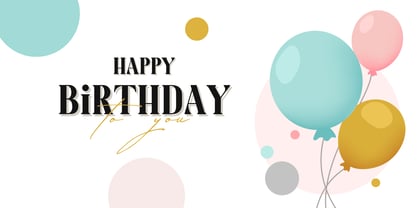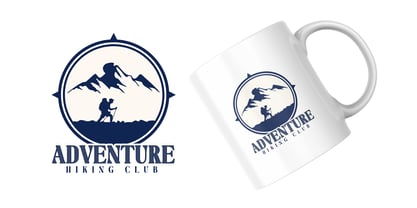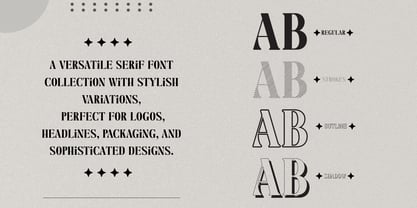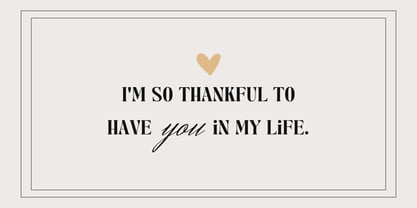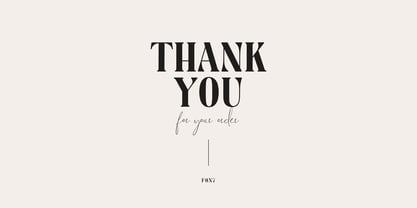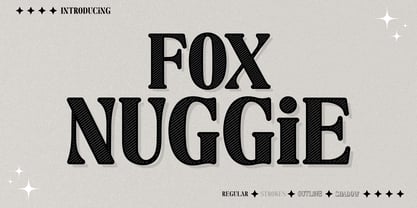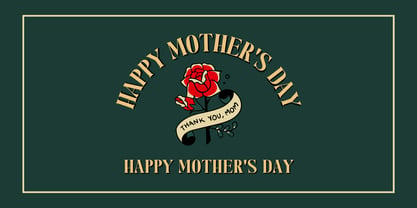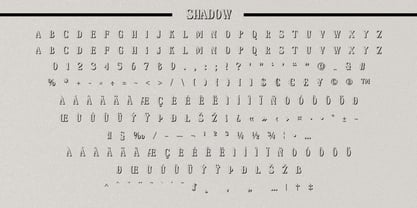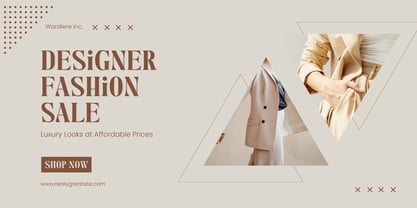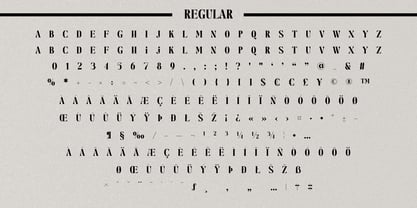
Fox Nuggie
The Fox Nuggie Font Family was designed by Rattana Rattanawan and published by Fox7. Fox Nuggie contains 4 styles and family package options. More about this family
Fox Nuggie is a versatile serif font collection designed to bring elegance, charm, and timeless sophistication to your creative projects. Inspired by classic typography with a modern touch, Fox Nuggie features beautifully balanced letterforms and refined details that feel both graceful and confident. This font family includes multiple stylish variations — Regular, Strokes, Outline, and Shadow — allowing you to create rich visual depth and eye-catching typography with ease. Whether used individually or layered together, Fox Nuggie offers endless creative possibilities. Perfect for logos, branding, headlines, packaging, editorial layouts, invitations, posters, and sophisticated designs, Fox Nuggie elevates your work with a polished and professional look.